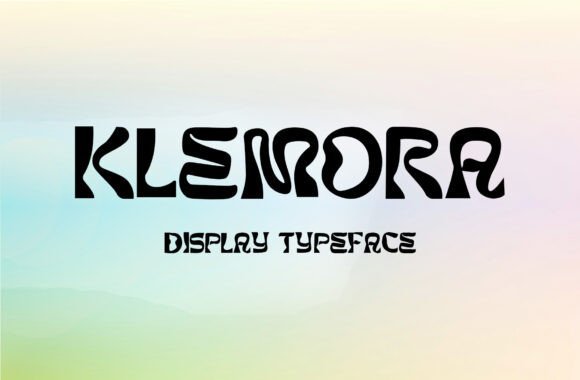
The Perfect Blend of Modern and Classic: Introducing the Klemora Font
Have you ever stared at a blank canvas, waiting for that elusive spark of creativity to strike? You’re not alone. For many designers, finding the right font can be the difference between a great project and a mediocre one. That’s where the Klemora Font comes in – a bold, modern display font that adds a touch of sophistication to any design.
Whether you’re working on an editorial project, creating a logo design, or looking for the perfect font for your clothing brand’s packaging, the Klemora Font is the perfect solution. Its unique and classy look makes it a valuable asset for designers who want to add a little fun and personality to their projects. With the Klemora Font, you can take your designs to the next level and make a lasting impression on your audience.
Klemora Font Key Features
- Font Family: Klemora is a unique, sans-serif font with a modern and elegant design.
- Unique Characteristics: Klemora features a distinctive x-height and a balanced line spacing, making it highly legible and easy to read.
Klemora Font Review
I recently had the chance to work with the Klemora font, and I must say it’s a mixed bag. Here are my honest thoughts.
- Unique design: Klemora has a distinct, hand-drawn feel that sets it apart from other fonts. It’s perfect for projects that need a touch of whimsy.
- Legibility: Despite its playful nature, Klemora is surprisingly legible, even at smaller font sizes.
- Font weights: The font offers a range of weights, from light to bold, which is great for adding depth to your designs.
- Overuse: Klemora’s playful style can quickly become overwhelming if overused. Be mindful of using it for extended periods or in large blocks of text.
- Lack of consistency: Some characters, like the uppercase ‘I’ and ‘l’, can appear inconsistent or irregular, which may detract from the overall design.
- Font size limitations: Klemora doesn’t scale well at very large font sizes, which may lead to pixelation or a loss of detail.
While Klemora has its limitations, I think it’s a great addition to any designer’s toolkit. Its unique design and legibility make it perfect for projects that need a touch of personality. Just be mindful of its limitations and use it judiciously to get the most out of it.
Tips for Getting the Most Out of Klemora Font
Use Klemora Font for creative and artistic projects, such as:
- Poster and flyer design
- Blog and social media graphics
Experiment with different font sizes and colors to create visually appealing designs.
Klemora Font is ideal for:
- Adding a touch of elegance and sophistication to your designs
- Creating eye-catching headlines and titles
- Designing unique and creative graphics
Alternatives to Klemora Font for Designers
The Great Vibes Font is a modern, elegant script font that works well for various applications, including logos, titles, and quotes. It’s ideal for designers who want to create a sense of sophistication and luxury. Great Vibes Font is more refined and polished compared to Klemora Font, which has a more playful and casual feel.
The Carolyna Pro Font is a high-end, modern script font that’s perfect for designers who want to create a sense of elegance and sophistication. It’s ideal for applications such as logos, titles, and invitations. Carolyna Pro Font is more refined and precise compared to Klemora Font, which has a more fluid and organic feel.
The Alex Brush Font is a beautiful, handwritten script font that works well for various applications, including logos, titles, and quotes. It’s ideal for designers who want to create a sense of warmth and personality. Alex Brush Font is more cursive and expressive compared to Klemora Font, which has a more modern and geometric feel.
The Dancing Script Font is a modern, elegant script font that’s perfect for designers who want to create a sense of sophistication and luxury. It’s ideal for applications such as logos, titles, and quotes. Dancing Script Font is more dynamic and playful compared to Klemora Font, which has a more subtle and understated feel.